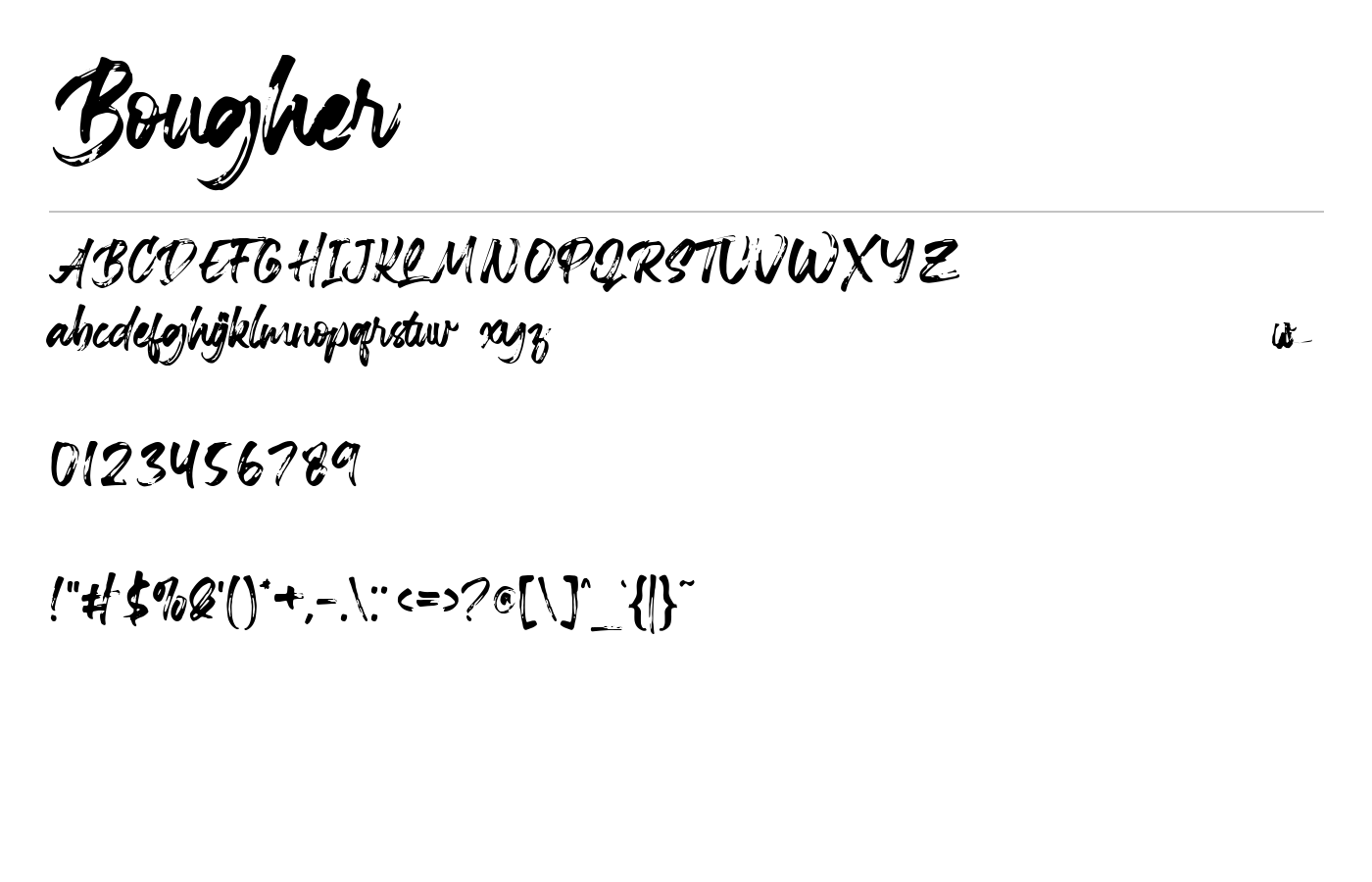
Bougher is a bold, expressive script font with a hand-painted feel, featuring thick and textured brush strokes that give it a dynamic and artistic personality. Its irregular, slightly condensed letterforms and lively contrast create a sense of energy and creativity, making it ideal for eye-catching headlines, logos, and branding that aim for a personal, handcrafted touch. This font works best in creative projects where a bold, informal style can add character and warmth.
Bougher Font
About Bougher Font